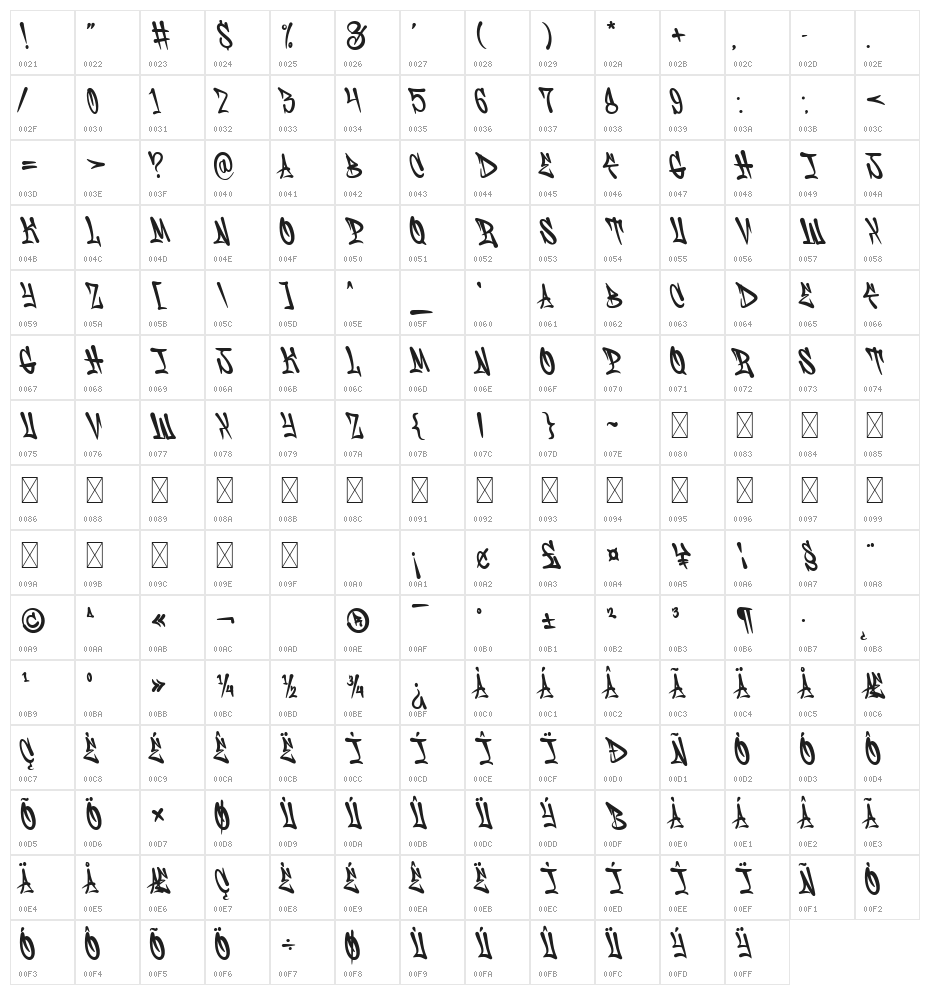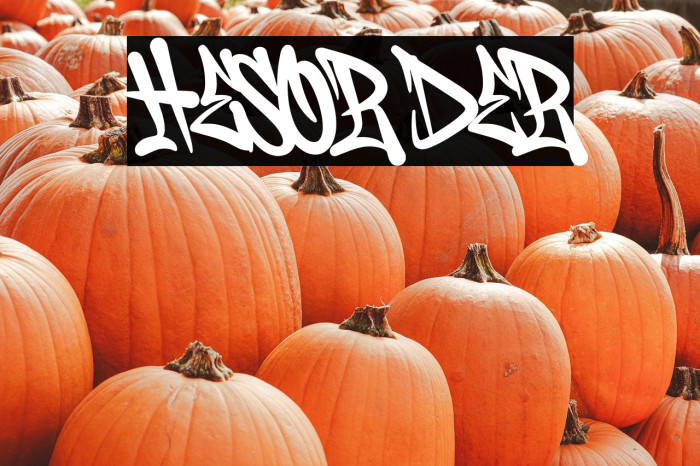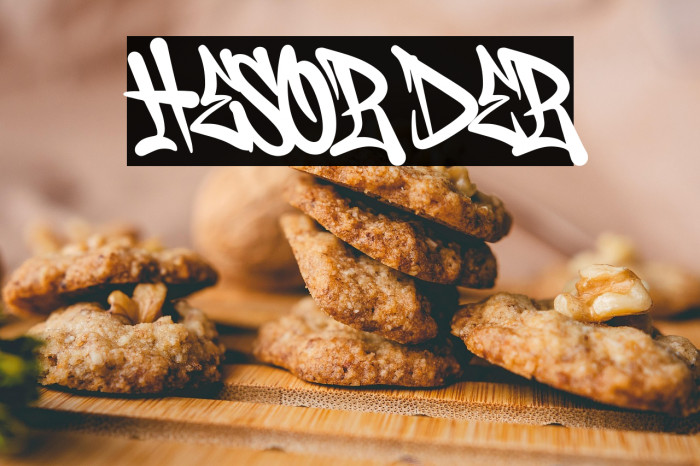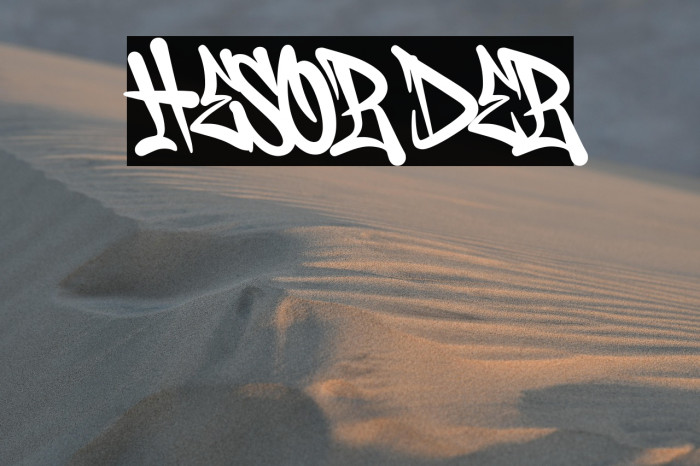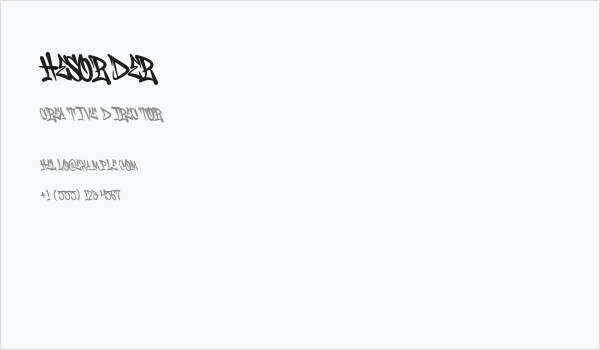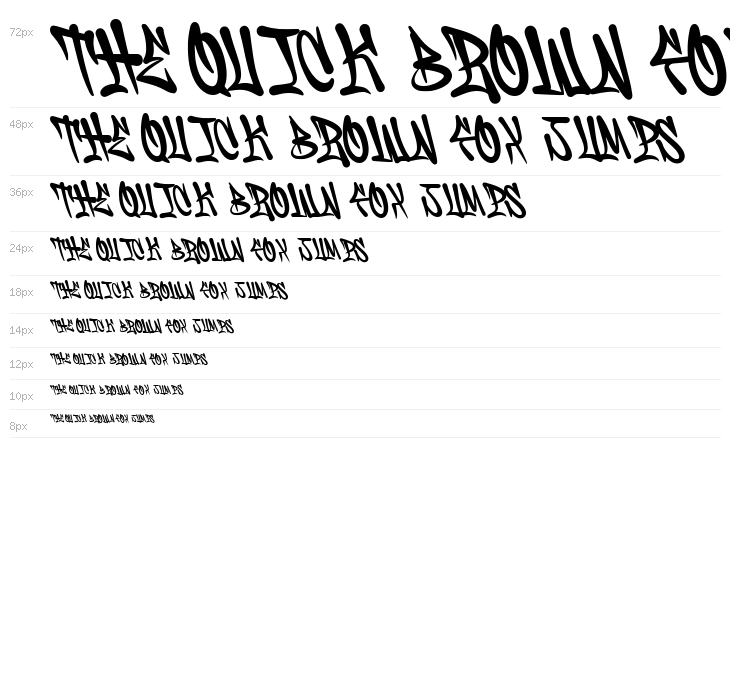
Hesorder Font
Hesorder Description
This font exhibits a bold and expressive style, characterized by its graffiti-inspired, hand-drawn appearance. The letters are dynamic and energetic, with exaggerated curves and angles that convey a sense of movement and creativity. The uppercase and lowercase letters maintain a consistent style, with a playful yet edgy aesthetic. Numbers and special characters are equally bold, integrating seamlessly with the overall design. The font's unique style makes it stand out, perfect for projects that require a strong visual impact.
| Overall Style | Modern, Urban |
| Use Case | Logos, Posters, Album Covers |
| Proposed Projects | Ideal for street art designs, urban-themed posters, music album covers, and edgy branding projects. |